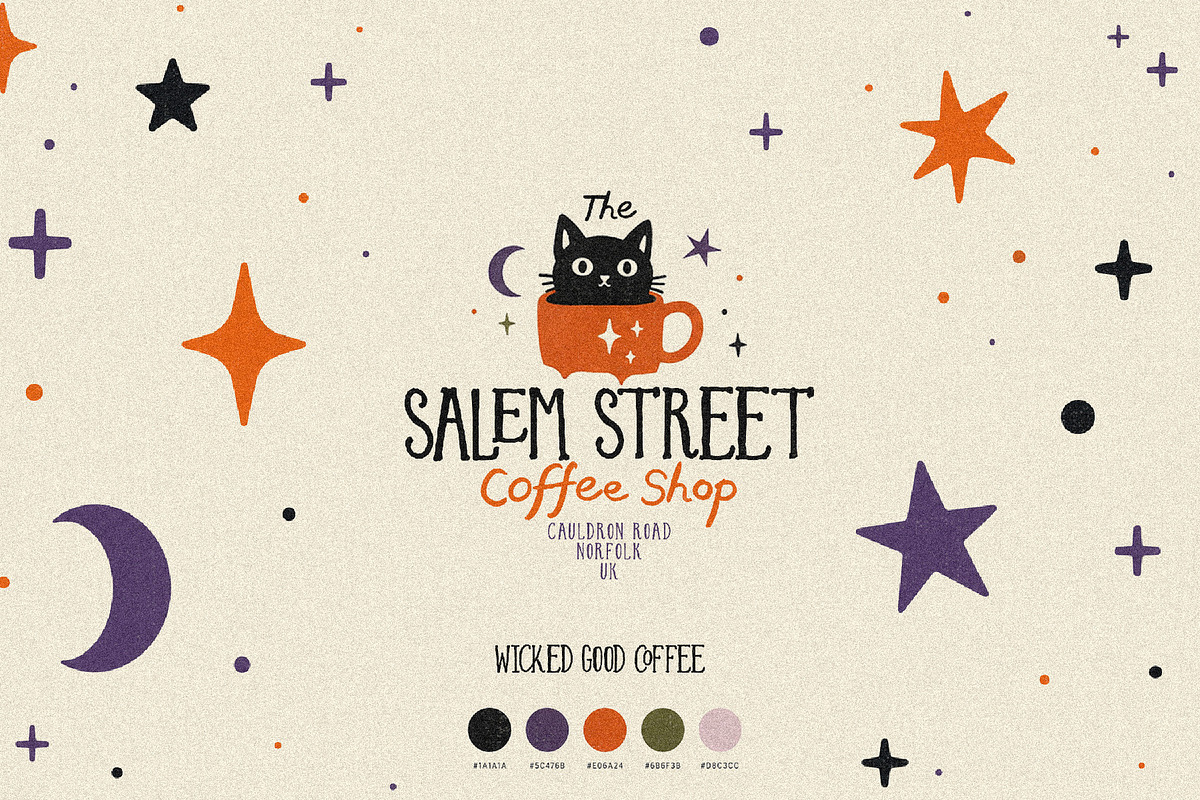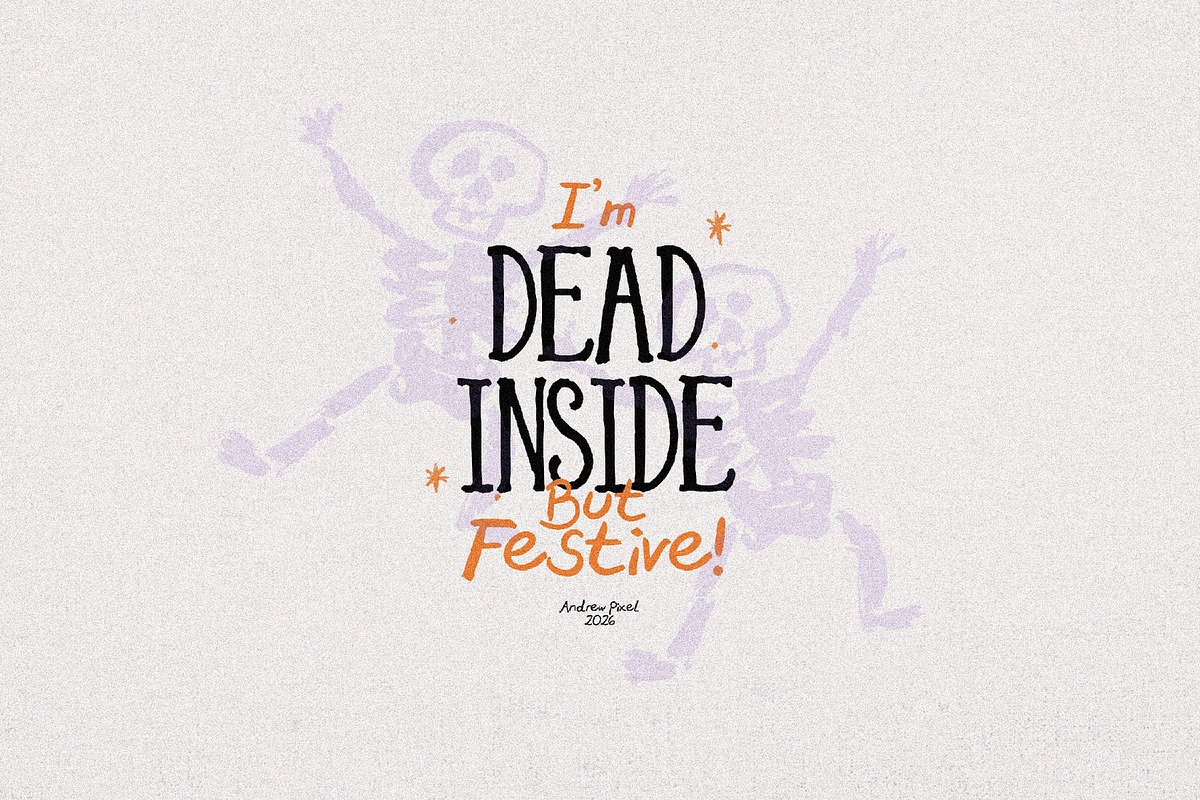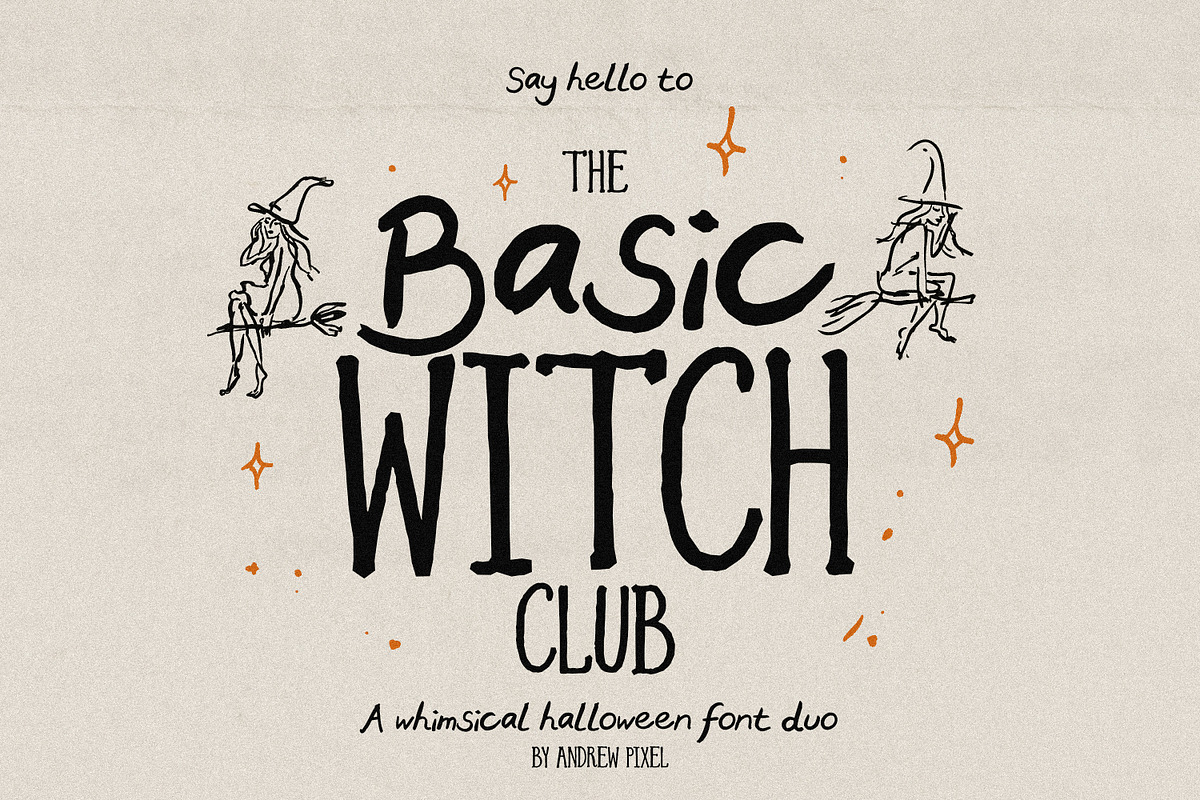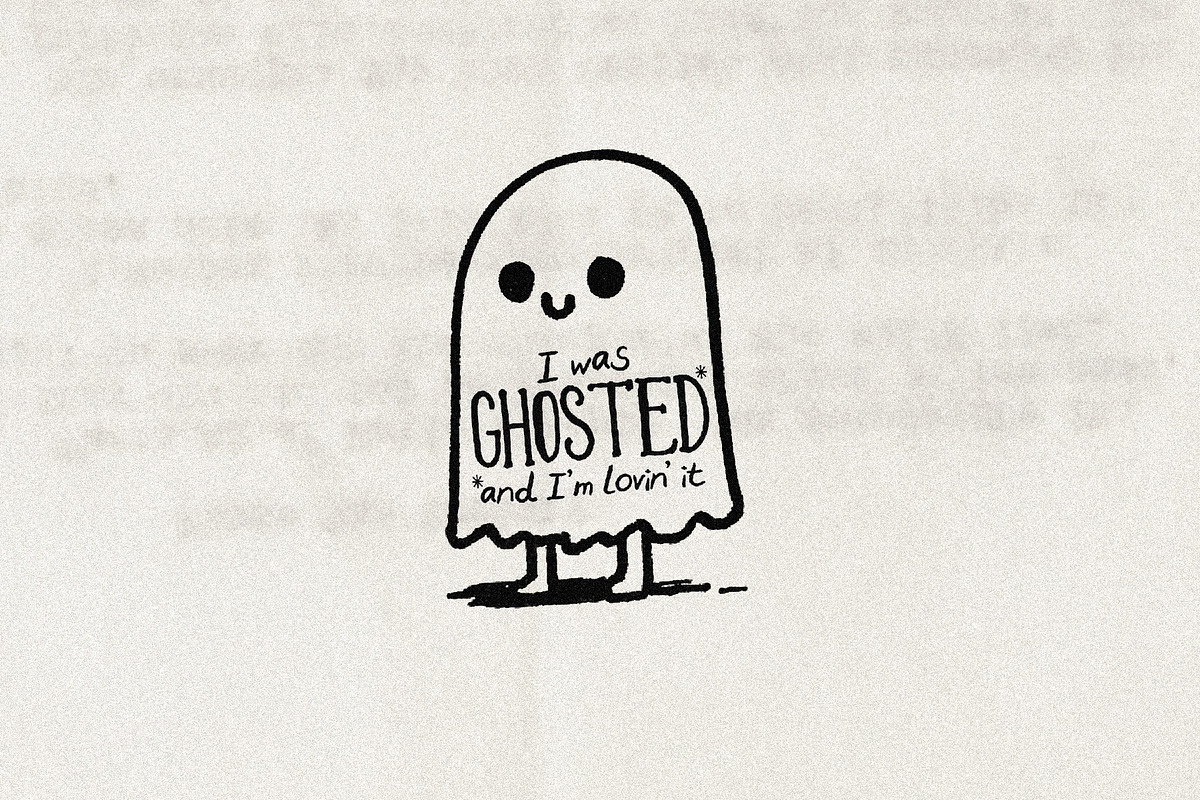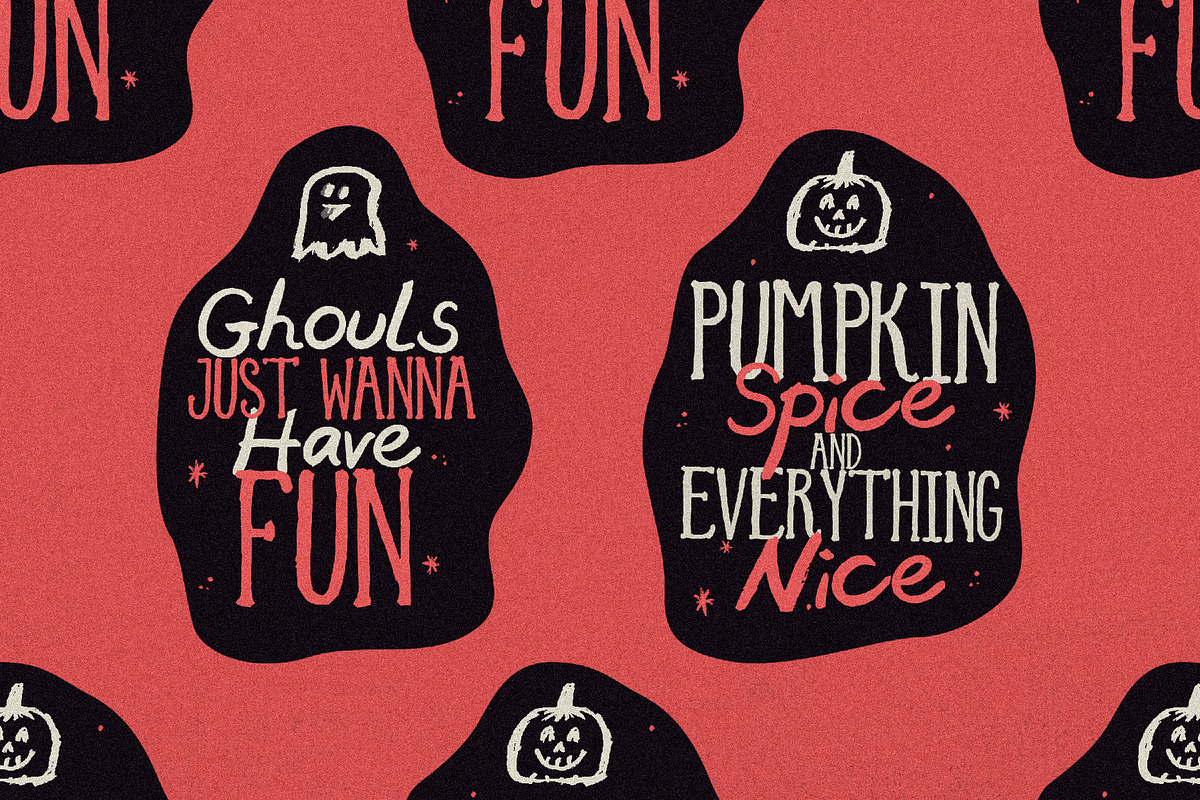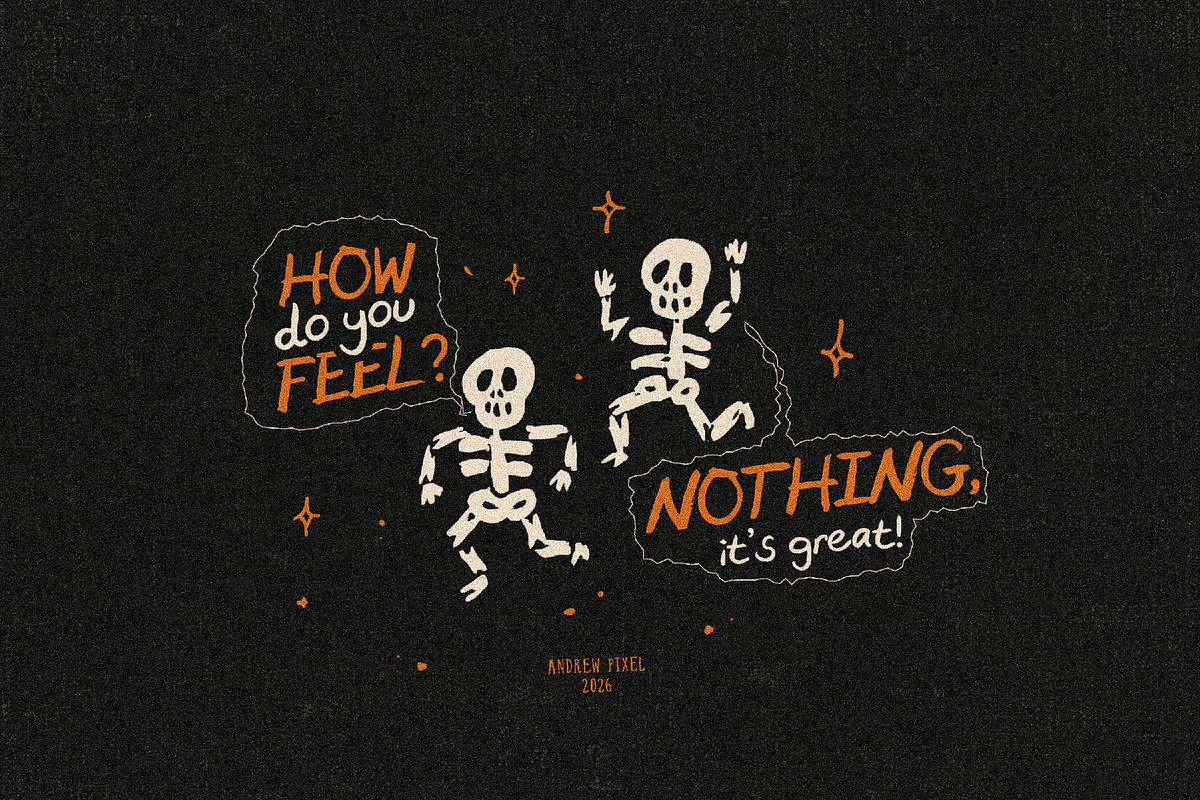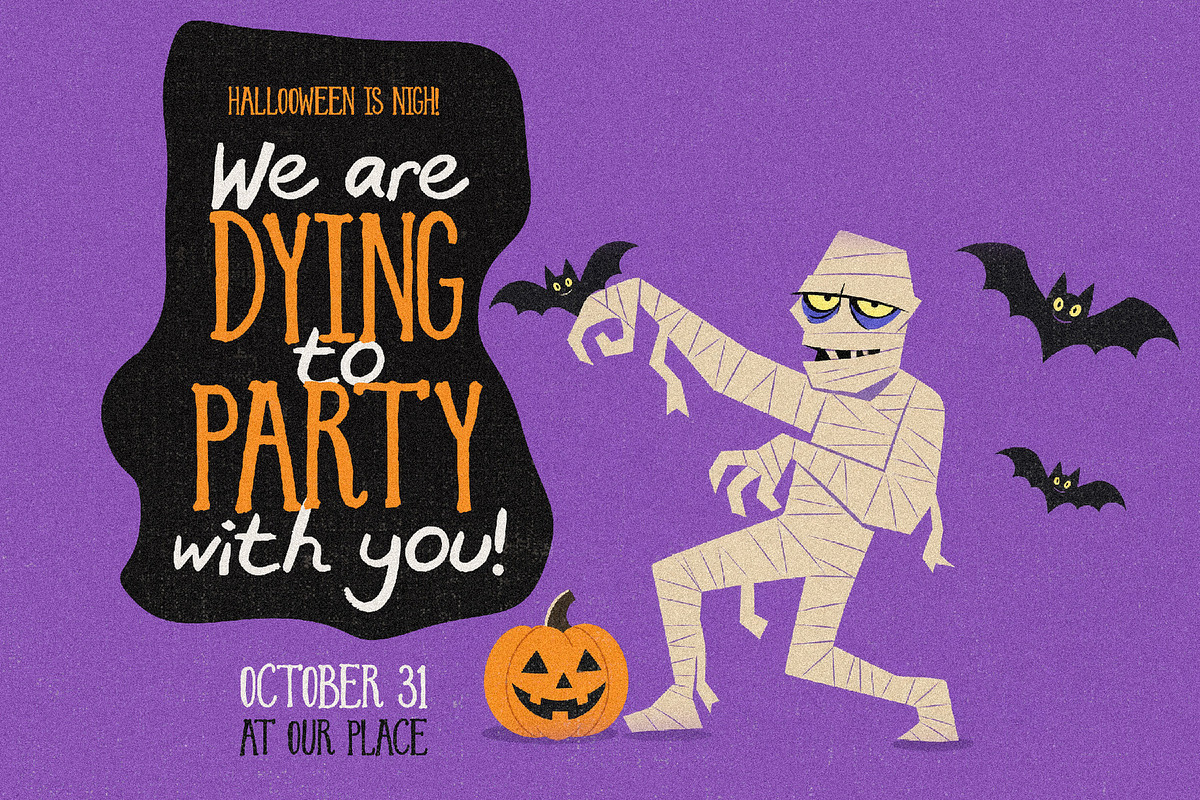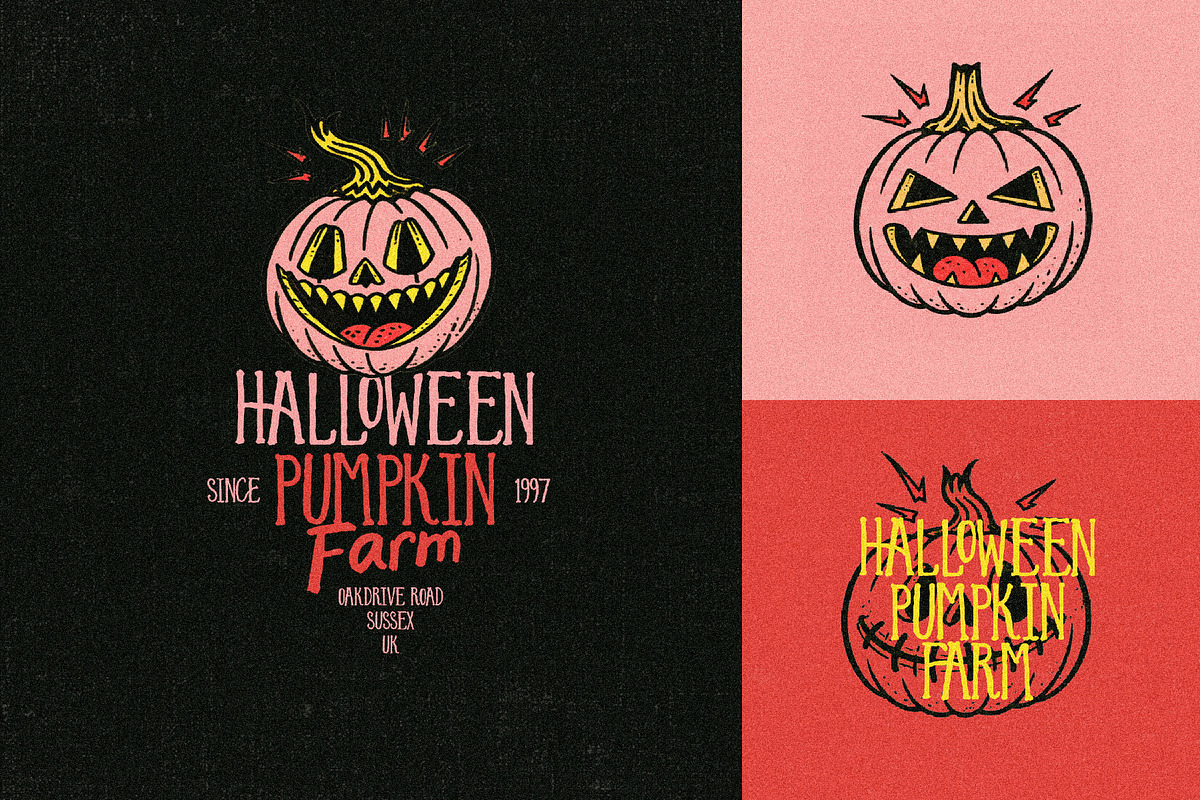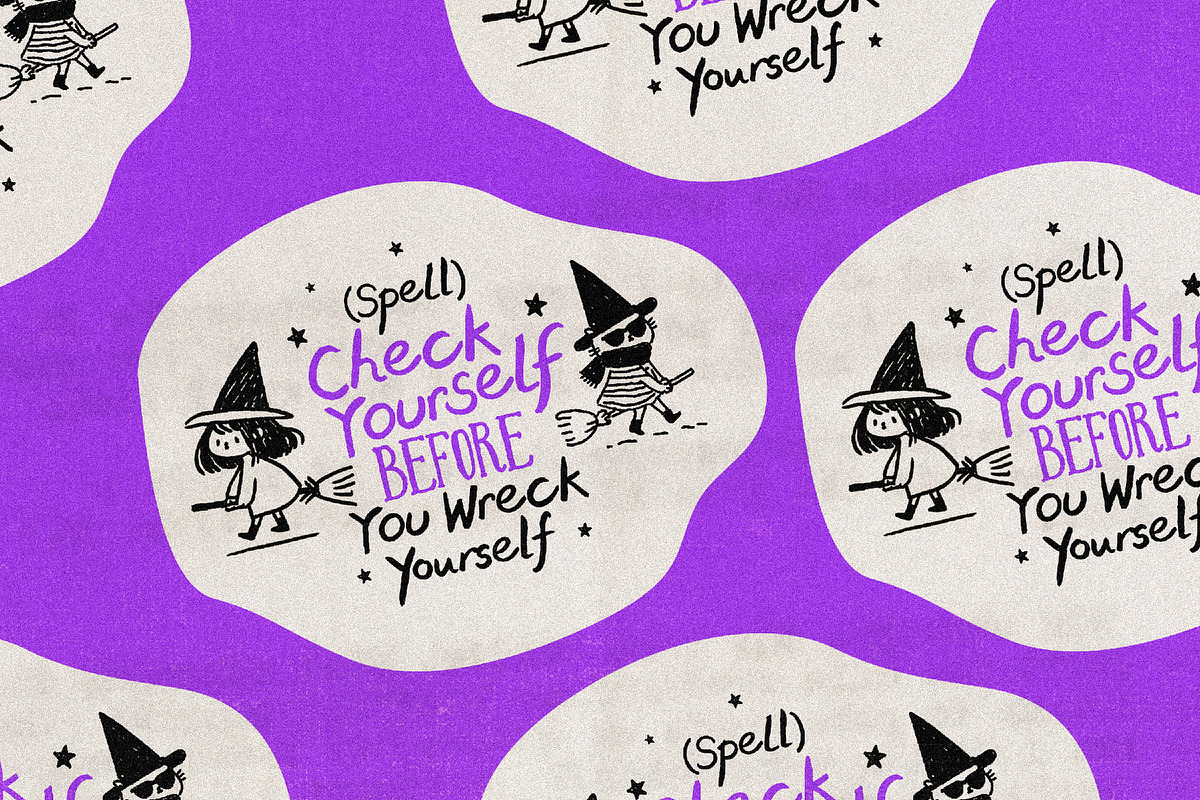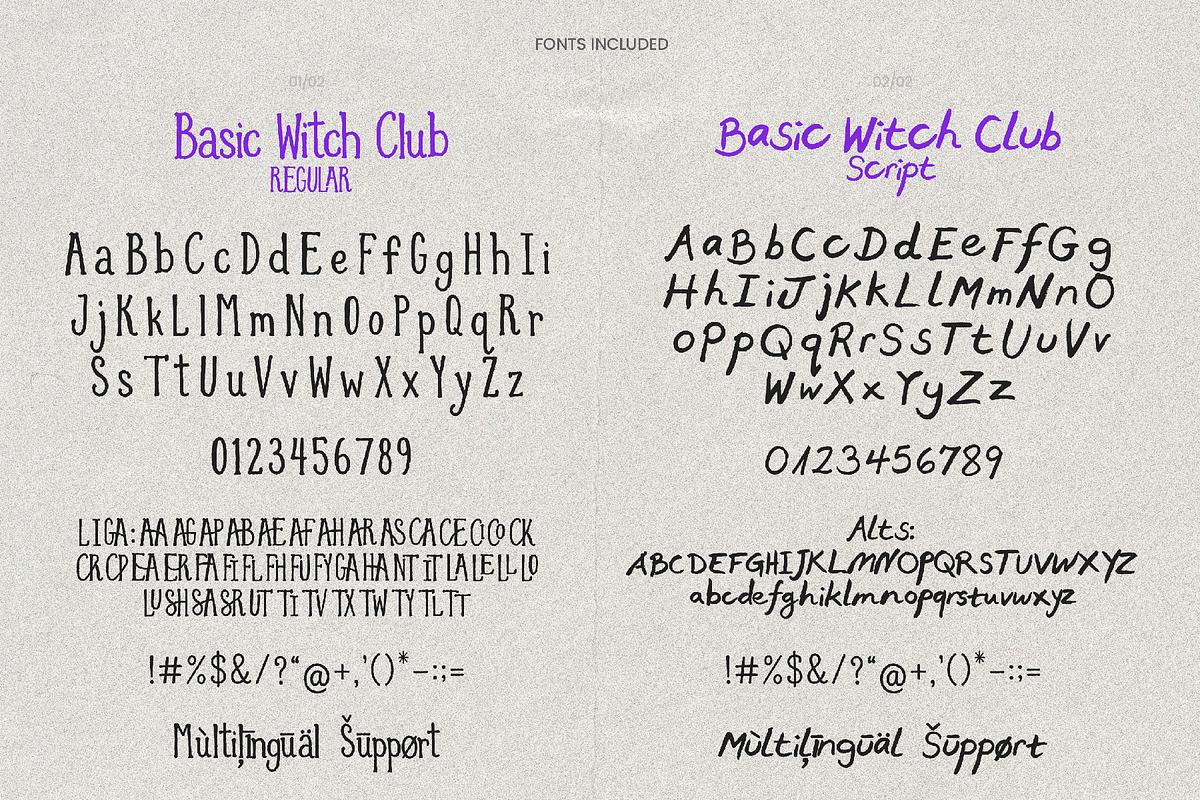
Basic Witch Club - Halloween Font
Say hello to Basic Witch Club – a whimsical Halloween font duo with a little bit of attitude.
Basic Witch Club is a hand-drawn Halloween font pair made for anyone who wants their designs to look charmingly imperfect, a little vintage, and a lot of fun – not cheesy or horror-movie scary.
You get two fonts that were made to be mixed together:
Basic Witch Club Regular (OTF) – A tall, skinny, hand-lettered serif with quirky wobbly strokes. Think retro Halloween poster meets hand-inked sign. Comes loaded with 60+ ligatures (AA, TT, LL, CK, TH and more) so your text looks genuinely handwritten and never repetitive.
Basic Witch Club Script (OTF) – A casual, marker-style handwritten font that pairs perfectly with the Regular. Includes a full set of alternate uppercase & lowercase letters so you can shake things up.
Halloween t-shirts, sweatshirts & tote bag designs
Trick-or-treat party invitations & flyers
Spooky season stickers & sublimation
Cricut & Silhouette craft projects, vinyl decals, wood signs
Halloween Instagram posts, stories & Pinterest pins
Coffee shop, bakery & seasonal small business branding
Pumpkin patch, farm & fall festival signage
Greeting cards, gift tags & treat bag labels
Planner stickers, Goodnotes & digital journaling
Kids' Halloween crafts, classroom decor & teacher printables
Witchy, ghost & skeleton quote prints
Mugs, candles & seasonal product packaging
Cozy, mystical & boho branding all year round (it's not just for October!)